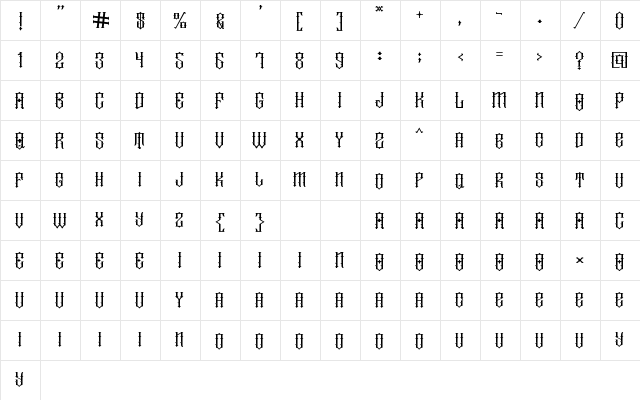
Motor Garage Regular
| Foundry | Wasisme Studio |
| Designer | Wasisme Studio |
Design Context for Motor Garage Typeface
Motor Garage is a composed and adaptable typeface that performs quietly and consistently across a wide range of design contexts.